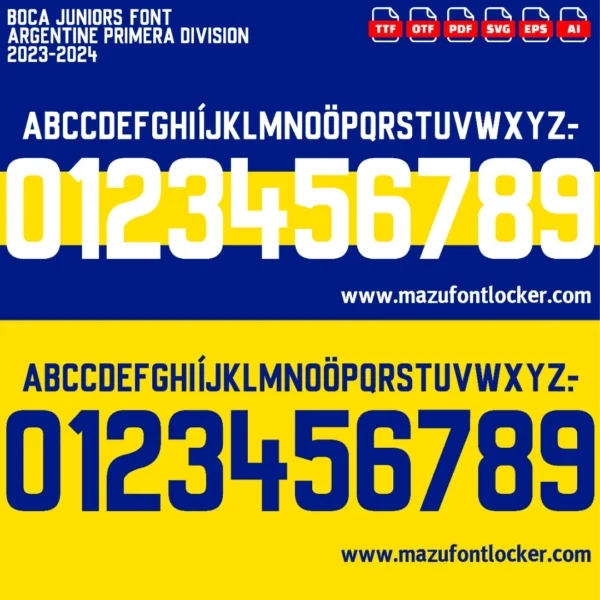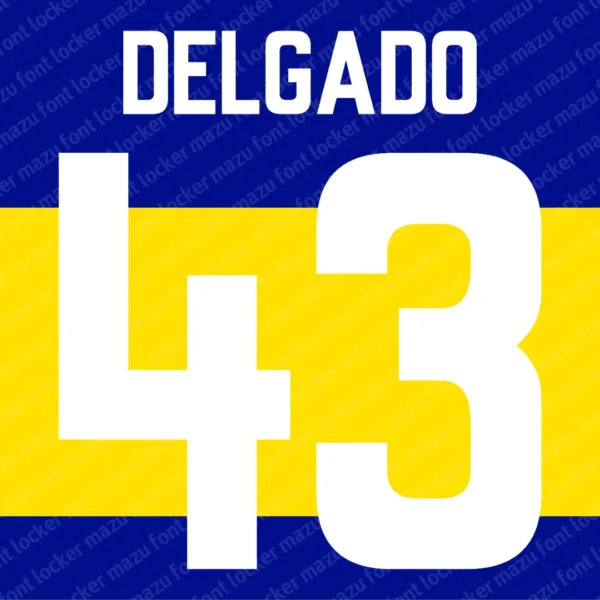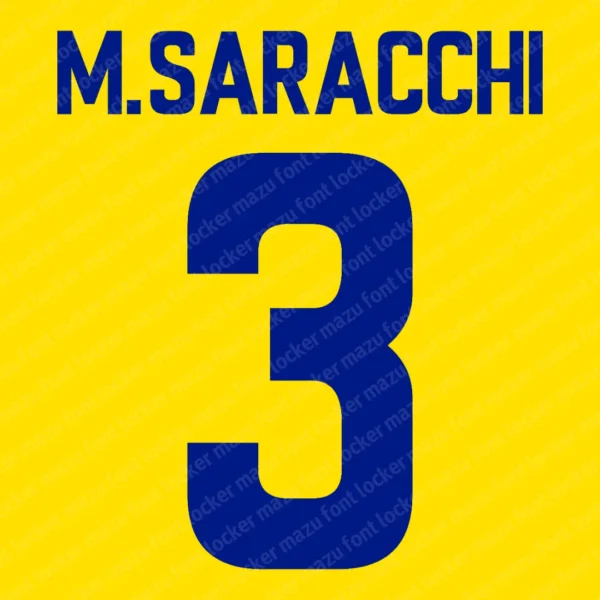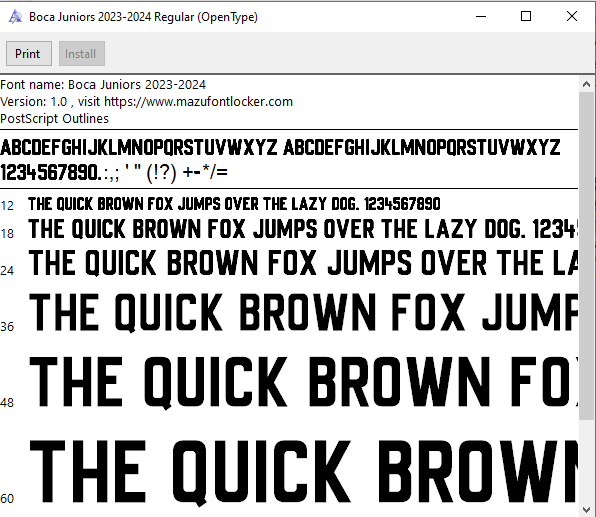
Boca Juniors 2023-2024 Font Vector – Stunning Xeneize Championship Typeface
This premium font faithfully recreates the bold, fearless, and championship-inspired typography that defines the identity of the Xeneizes—delivering the unmistakable energy of Argentine football, legendary blue-and-gold pride, uncompromising intensity, warrior mentality, attacking brilliance, and the rich football heritage that has established Boca Juniors as one of South America’s most iconic, successful, and globally respected football clubs.
Boca Juniors 2023-2024 Font Vector – Stunning Xeneizes Legacy Typeface
The Boca Juniors 2023-2024 Font Vector is a premium typeface that accurately recreates the official match lettering worn by Boca Juniors during the 2023-2024 season. This high-quality vector font package captures the bold, iconic, and instantly recognizable typography that appeared on the famous blue-and-gold shirts throughout another exciting campaign.
Created for professional designers, football collectors, jersey customizers, and passionate Boca Juniors supporters, the Boca Juniors 2023-2024 Font Vector provides authentic lettering for football kit mockups, retro recreations, sports branding, fan merchandise, social media graphics, and digital content. Every character has been carefully designed to reflect the official match font used by Los Xeneizes.
Why Choose Boca Juniors 2023-2024 Font Vector
This font faithfully reproduces the official shirt lettering used by Boca Juniors throughout the 2023-2024 season. Every letter and number has been recreated with attention to detail, allowing designers to produce realistic jersey concepts, football artwork, historical recreations, and premium-quality fan projects. Whether you’re creating print materials or digital graphics, the Boca Juniors 2023-2024 Font Vector delivers professional-level accuracy.
The lettering features a bold, athletic, and modern appearance that reflects Boca Juniors’ rich football heritage and the unforgettable atmosphere of La Bombonera. Sharp edges, balanced proportions, and excellent readability make this font suitable for both large-format prints and digital designs.
The numerals closely replicate the official squad numbers worn during the 2023-2024 campaign. Each number has been vectorized with precision to ensure crisp scaling for jersey printing, posters, banners, and commercial design projects.
- Complete uppercase A–Z and numbers 0–9 in authentic Boca Juniors 2023-2024 style
- Extended Latin multilingual character support with diacritics
- Includes accurate crest glyph positioning for realistic football shirt customization
Boca Juniors 2023-2024 Season
During the 2023-2024 season, Boca Juniors once again competed among Argentina’s elite clubs while representing the famous blue and gold colors across domestic and continental competitions. The team battled throughout the Argentine Primera División, Copa Argentina, Copa de la Liga Profesional, and international tournaments, continuing the club’s proud tradition of passionate football and unforgettable nights at La Bombonera.
The season showcased Boca Juniors’ competitive spirit, experienced leadership, and talented squad, making the official match lettering one of the most recognizable football fonts in South America.
The Boca Juniors 2023-2024 Font Vector is an independently designed typeface package created to replicate the official shirt lettering style used by Boca Juniors during the 2023-2024 season. It is perfect for football-inspired artwork, retro jersey recreations, sports branding, historical collections, and personal design projects.